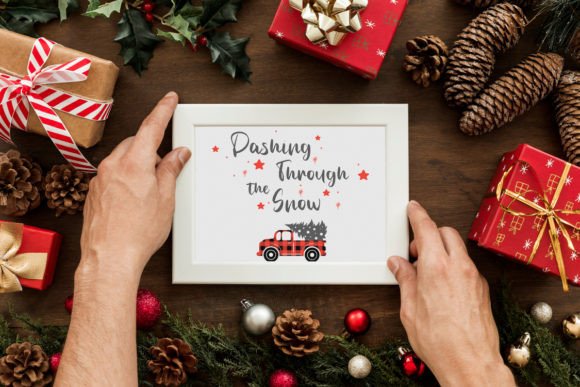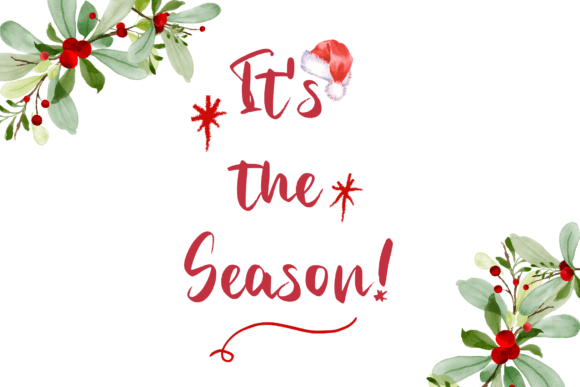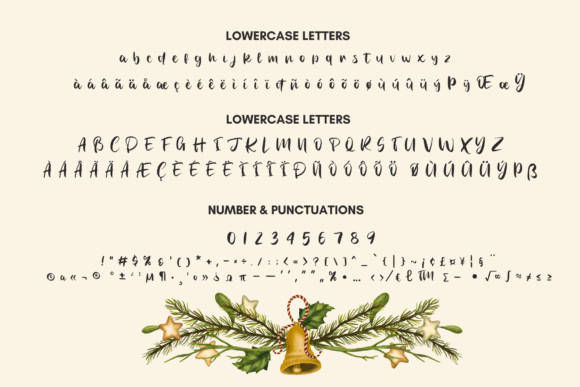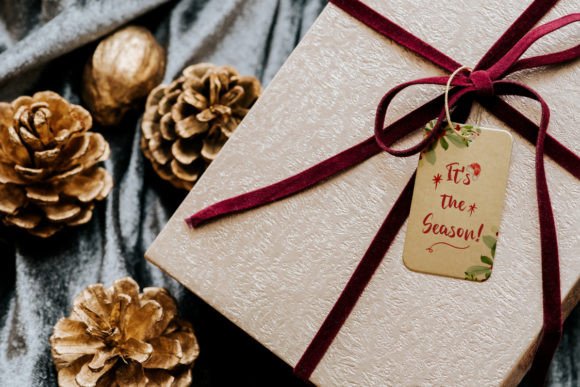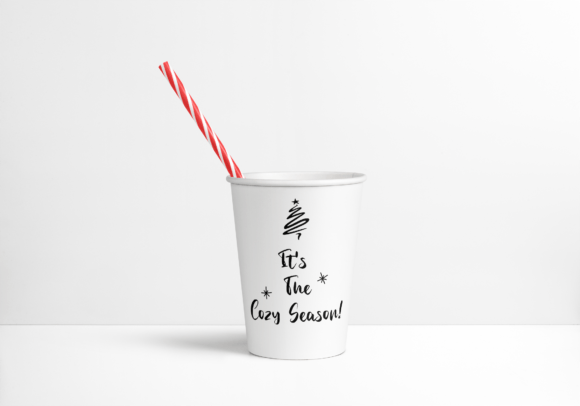
Introducing Christmas Breeze Font: The Perfect Holiday Companion for Designers and Crafters
The holiday season is upon us, and with it comes the need for festive and fun designs that capture the spirit of Christmas. If you’re a designer or crafter looking for the perfect font to add a touch of cheer to your projects, look no further than Christmas Breeze Font. This neat, modern, and casual handwritten script font is specifically designed for the special holiday season, conveying joy, cheerfulness, and liveliness in every letter.
What Makes Christmas Breeze Font So Special?
Christmas Breeze Font is more than just a holiday-themed font – it’s a versatile and creative tool that can be used in a variety of projects. Whether you’re designing Christmas cards, holiday-themed merchandise, or simply looking for a fun and playful font for your craft projects, Christmas Breeze Font is the perfect choice. Its modern and casual design makes it perfect for a wide range of applications, from festive holiday designs to more formal occasions like wedding cards and celebration initiation cards.
Key Features of Christmas Breeze Font
- Handwritten Script Font: Christmas Breeze Font is a beautiful, handwritten script font that adds a personal touch to any project.
- Modern and Casual Design: The font’s modern and casual design makes it perfect for a wide range of applications, from festive holiday designs to more formal occasions.
- Perfect for Holiday Projects: Christmas Breeze Font is specifically designed for the holiday season, making it the perfect choice for Christmas cards, holiday-themed merchandise, and more.
- Versatile: The font can be used in a variety of projects, including wedding cards, celebration initiation cards, and other craft projects.
Why Designers and Crafters Love Christmas Breeze Font
Designers and crafters love Christmas Breeze Font for its unique and festive design. The font’s handwritten script style adds a personal touch to any project, making it perfect for designers and crafters who want to create unique and eye-catching designs. Additionally, the font’s versatility makes it perfect for a wide range of applications, from holiday-themed designs to more formal occasions.
How to Use Christmas Breeze Font in Your Projects
- Christmas Cards: Use Christmas Breeze Font to create festive and fun Christmas cards for your friends and family.
- Holiday-Themed Merchandise: Use the font to create holiday-themed merchandise, such as t-shirts, mugs, and tote bags.
- Wedding Cards: Use Christmas Breeze Font to create beautiful and elegant wedding cards.
- Craft Projects: Use the font to add a personal touch to your craft projects, such as scrapbooking, journaling, and more.
Tips and Tricks for Getting the Most Out of Christmas Breeze Font
Here are a few tips and tricks for getting the most out of Christmas Breeze Font:
- Experiment with Different Colors: Try pairing Christmas Breeze Font with different colors to create unique and eye-catching designs.
- Use it with Other Fonts: Experiment with pairing Christmas Breeze Font with other fonts to create interesting and dynamic designs.
- Add Decorations: Add decorations, such as holly or snowflakes, to your designs to make them more festive and fun.
Christmas Breeze Font is the perfect holiday companion for designers and crafters. Its modern and casual design makes it perfect for a wide range of applications, from festive holiday designs to more formal occasions. With its versatility and unique handwritten script style, Christmas Breeze Font is sure to become a favorite font in your design arsenal. So why wait? Download Christmas Breeze Font today and start creating festive and fun designs for the holiday season!